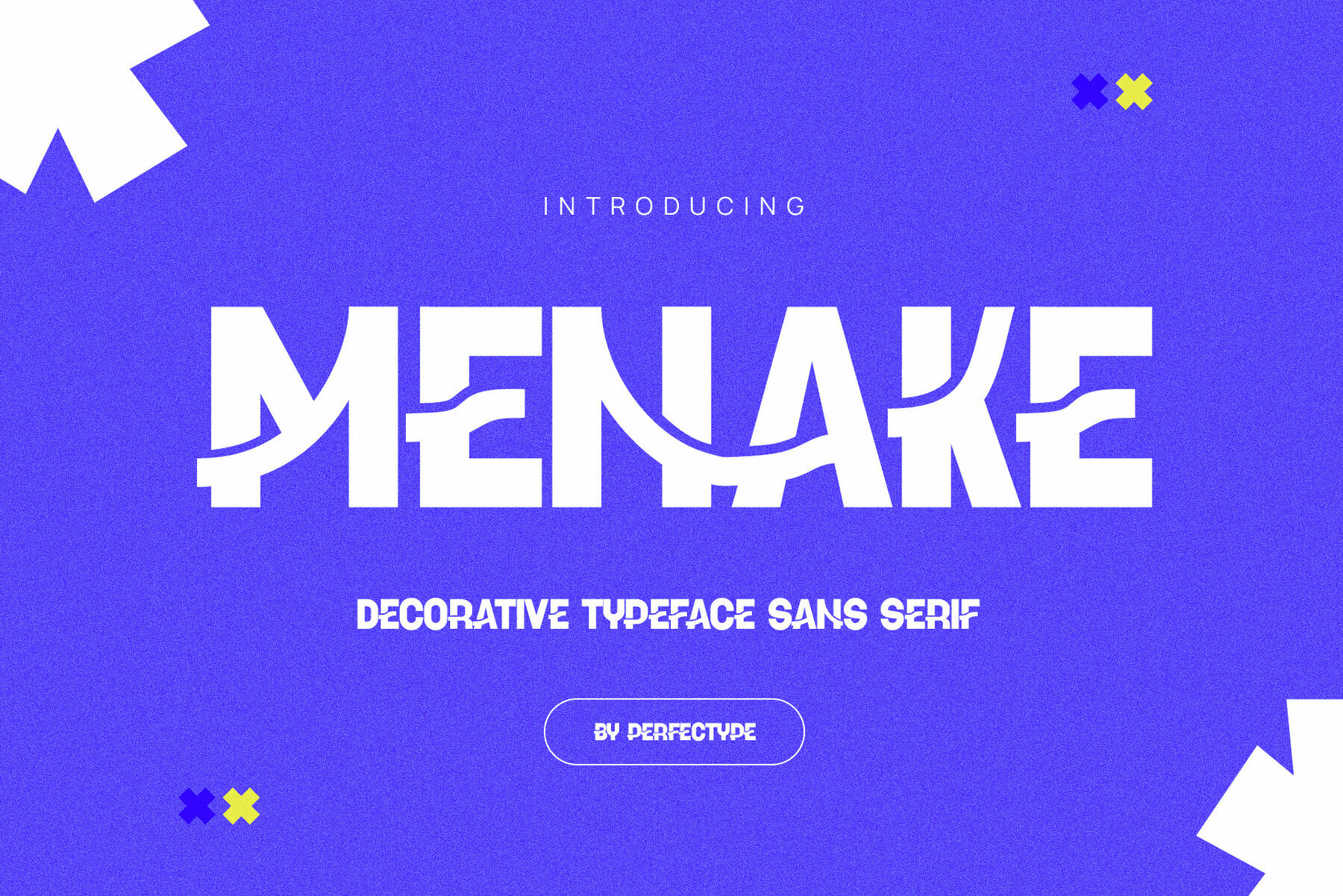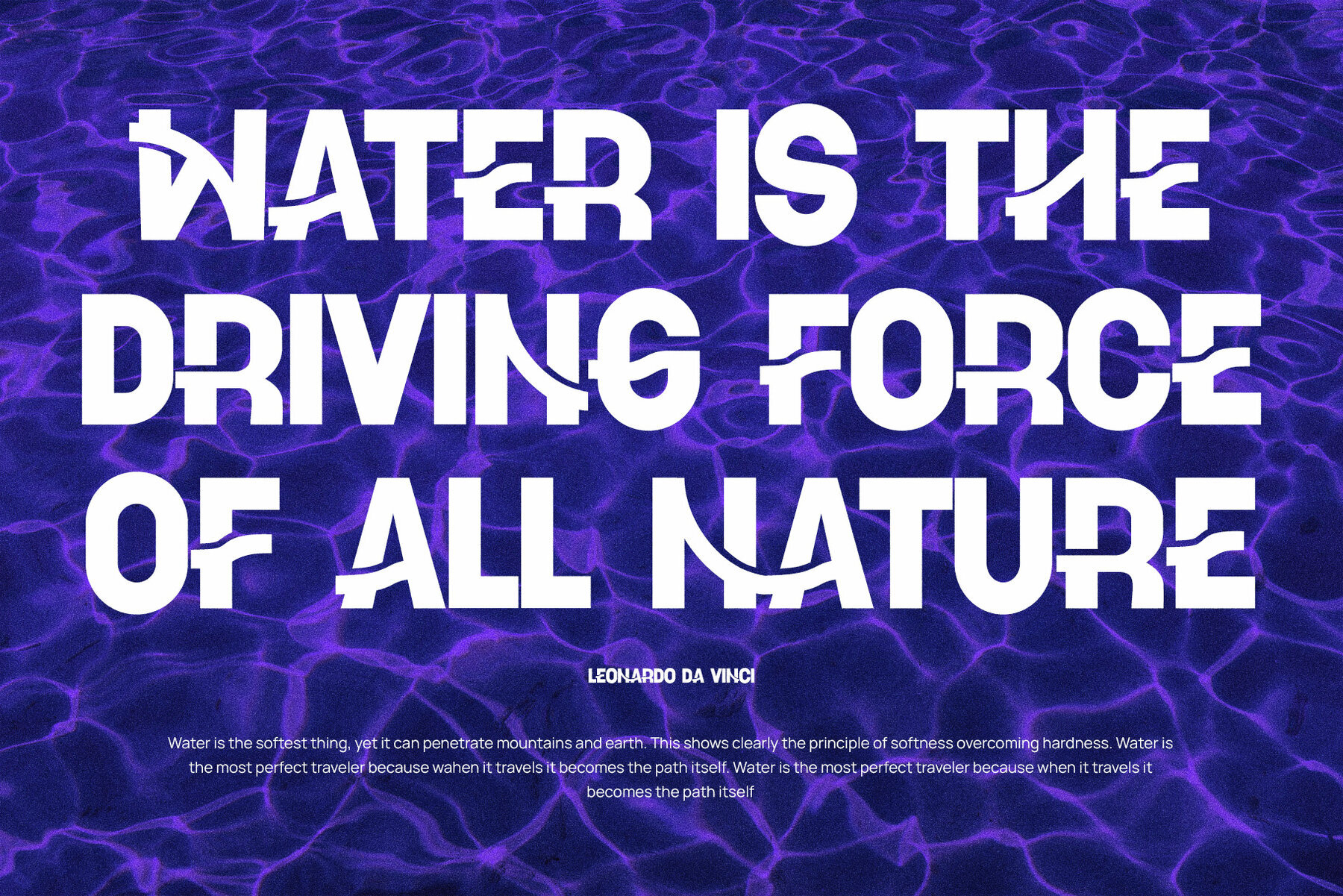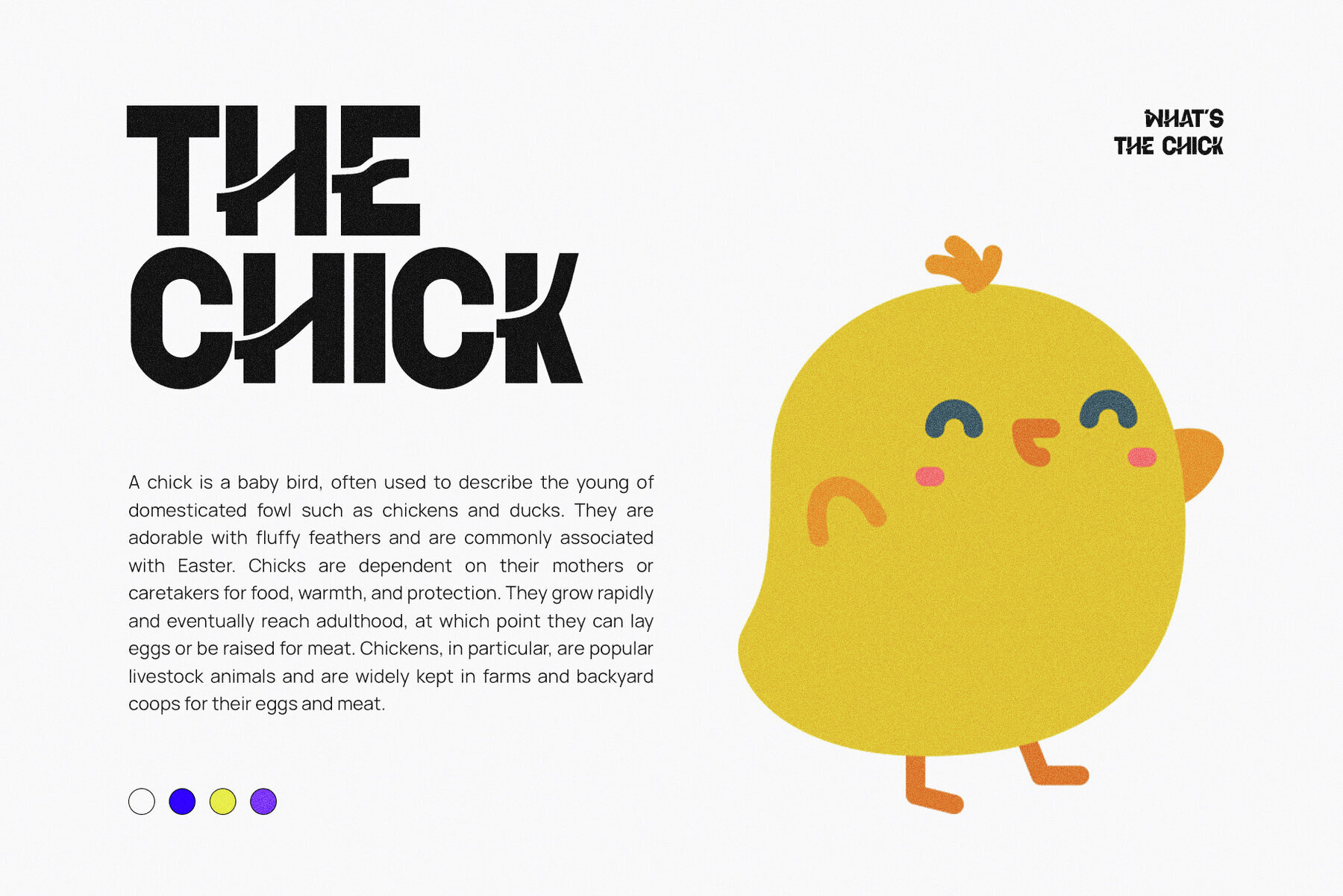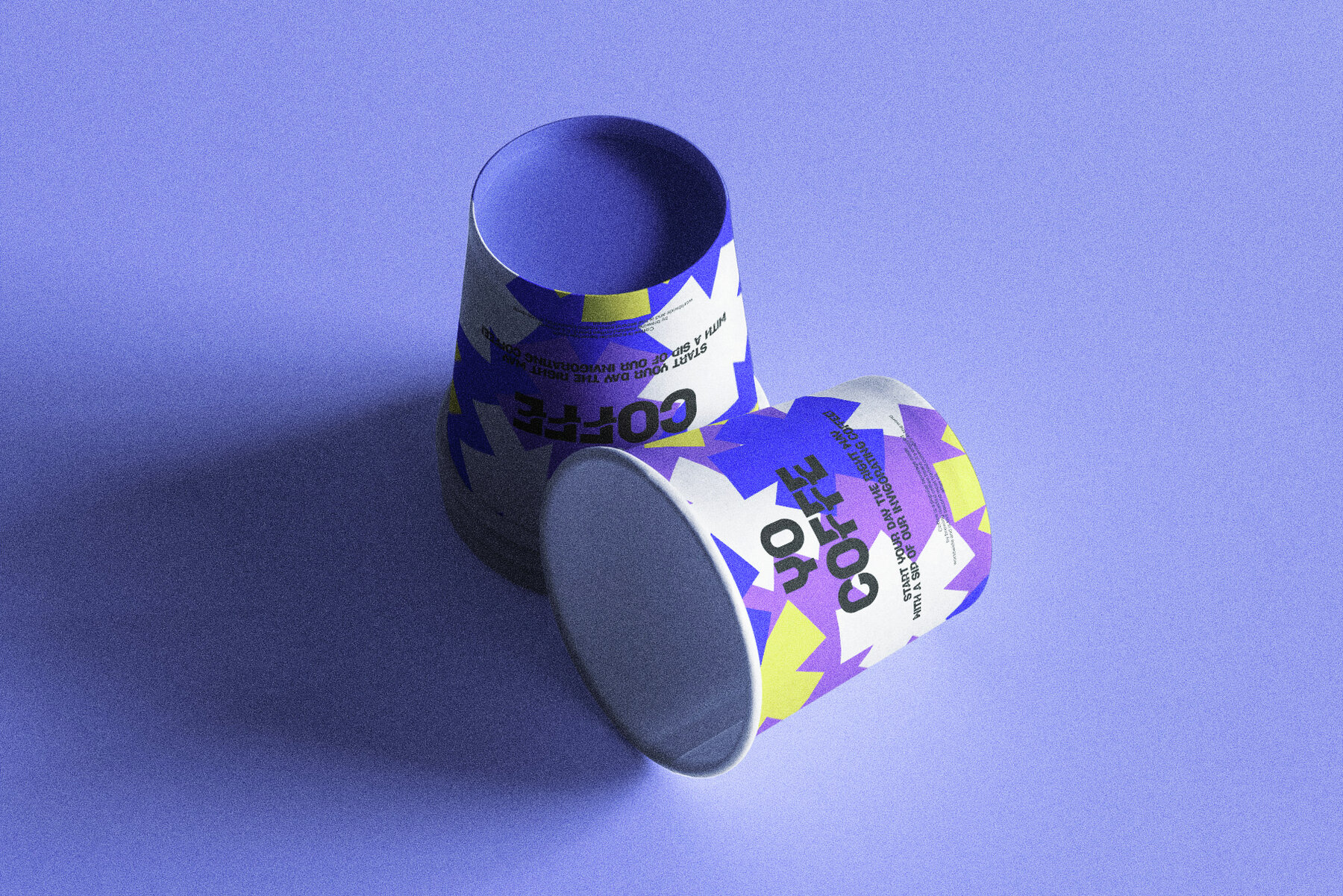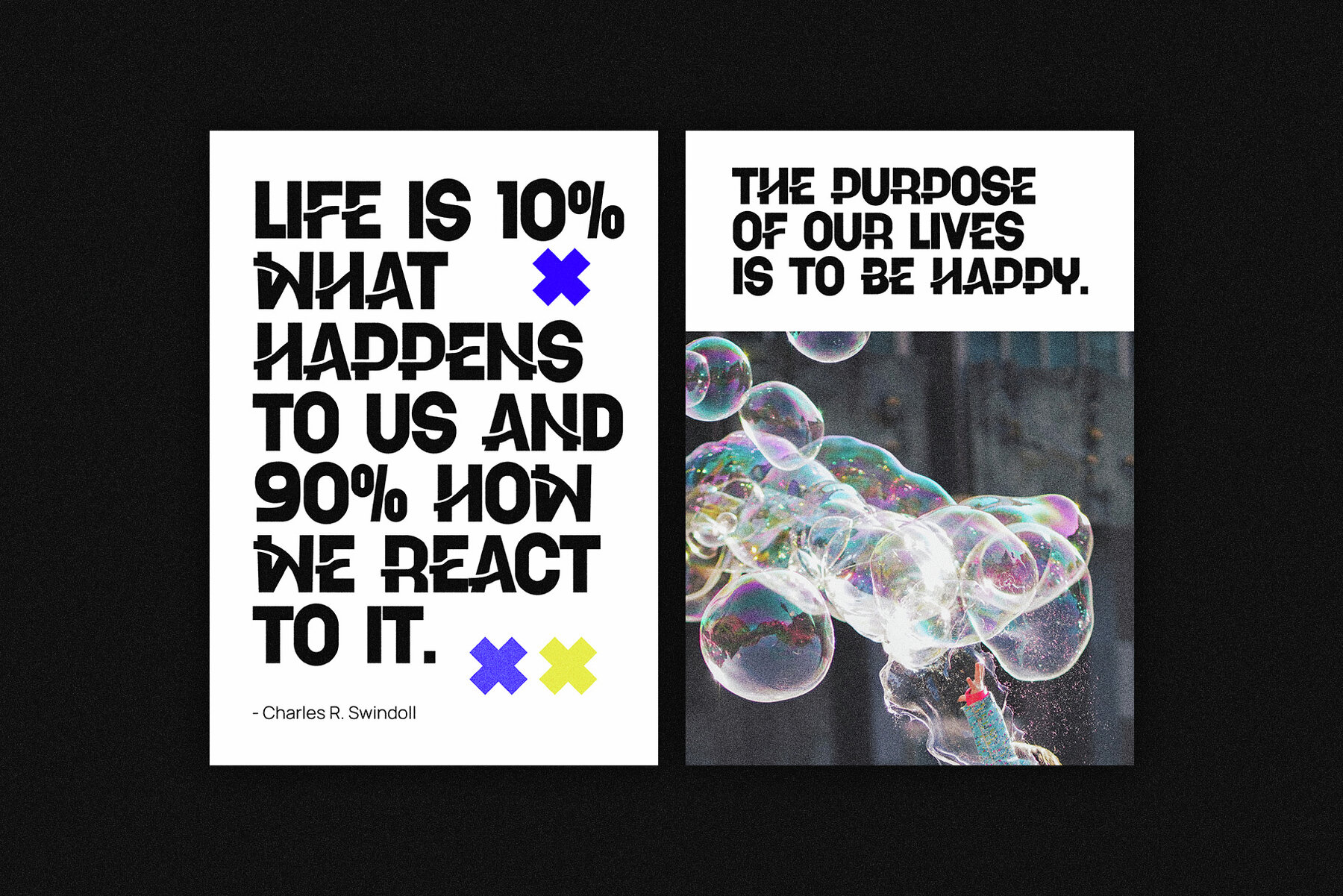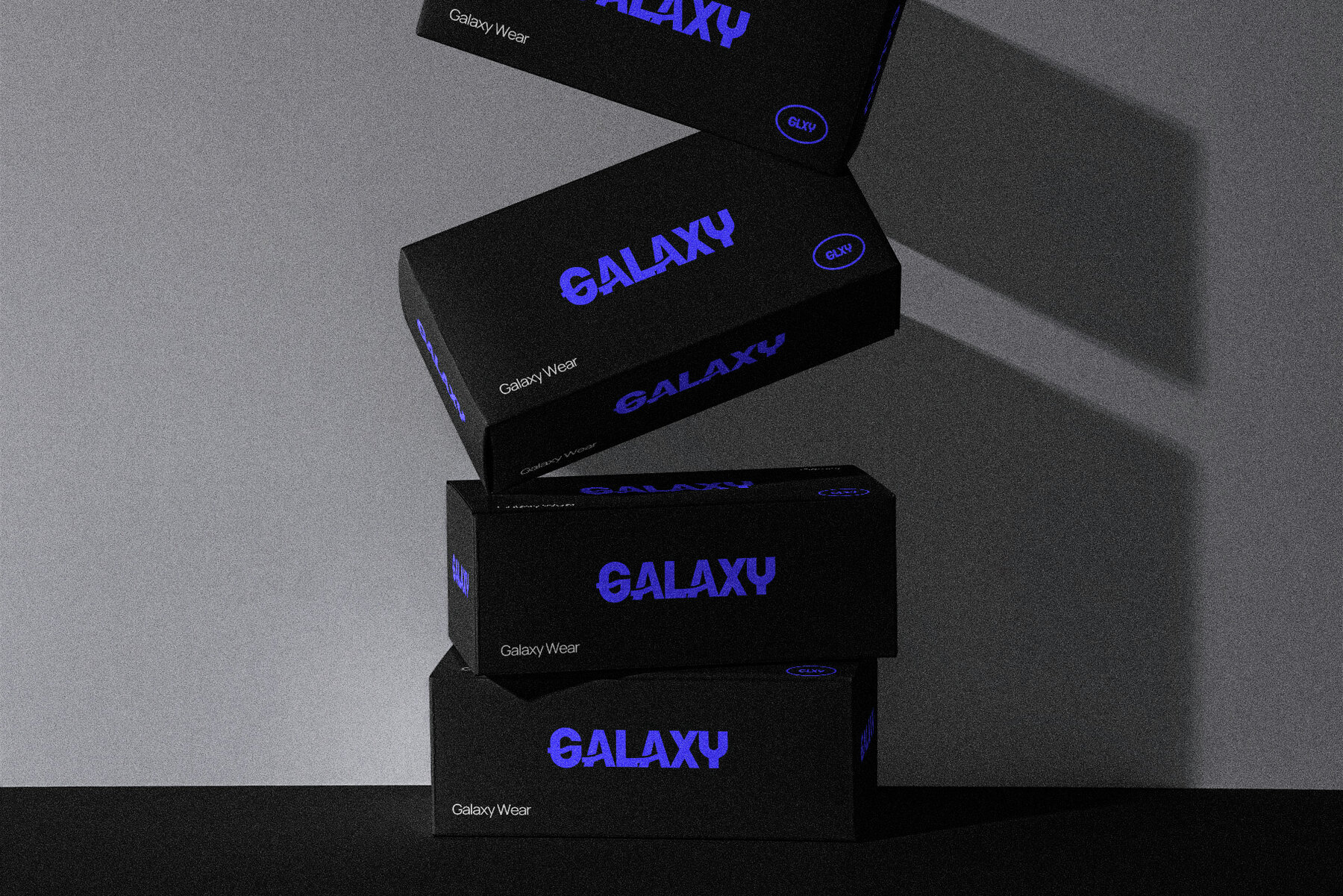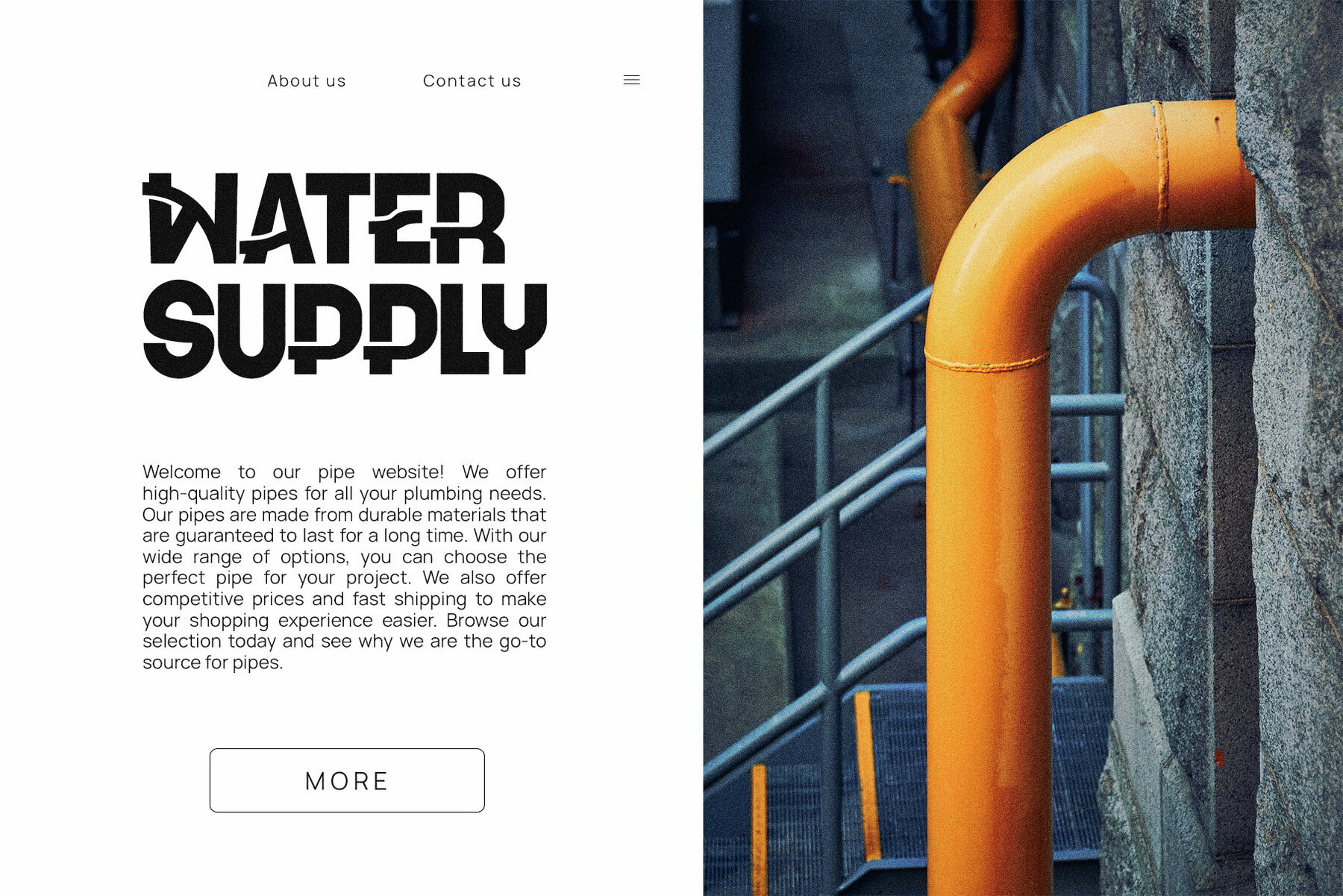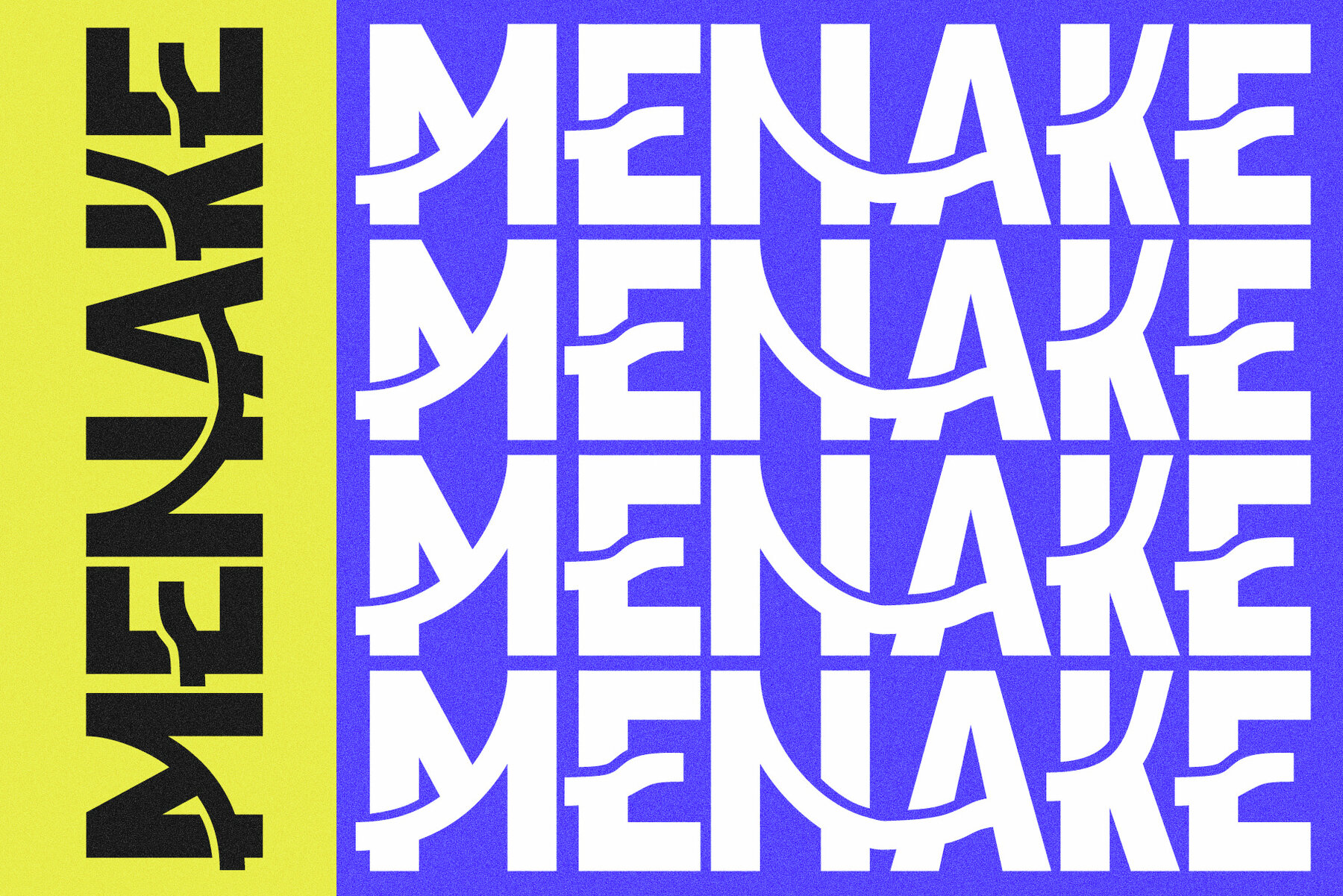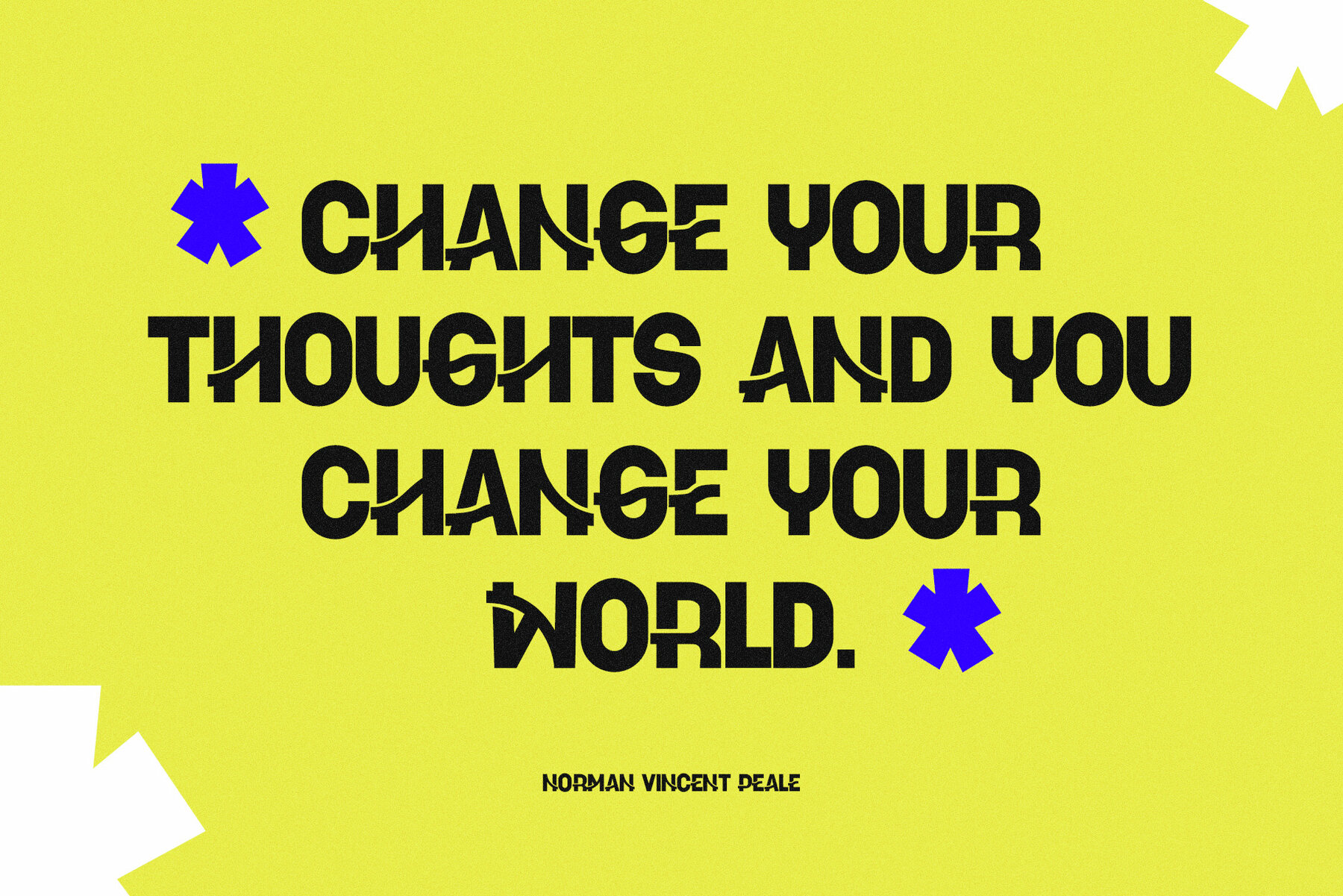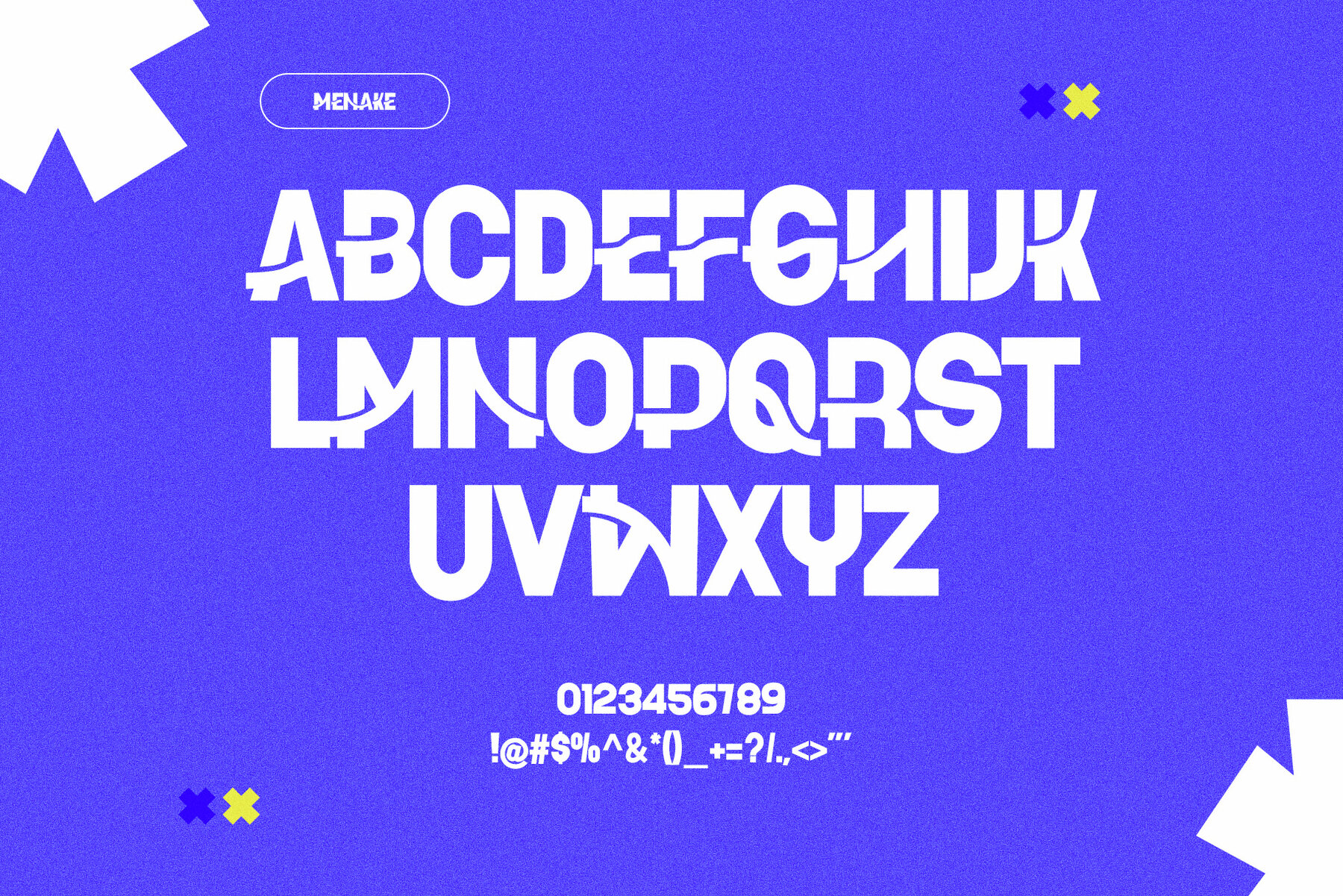
Menake Font
Menake Regular
Menake by Perfectype Studio is a sans serif font designed with an emphasis on balance and readability. Crafted with attention to detail and neatness, this font is ideal for diverse branding applications. From brochures and advertising materials to logos and layout designs, Menake seamlessly enhances your graphic design projects. For optimal results, using Menake with Adobe Illustrator or Adobe Photoshop is recommended. Enjoy the excellence of our fonts, and for any inquiries, please feel free to reach out for assistance.Menake: A Balanced Sans Serif Font